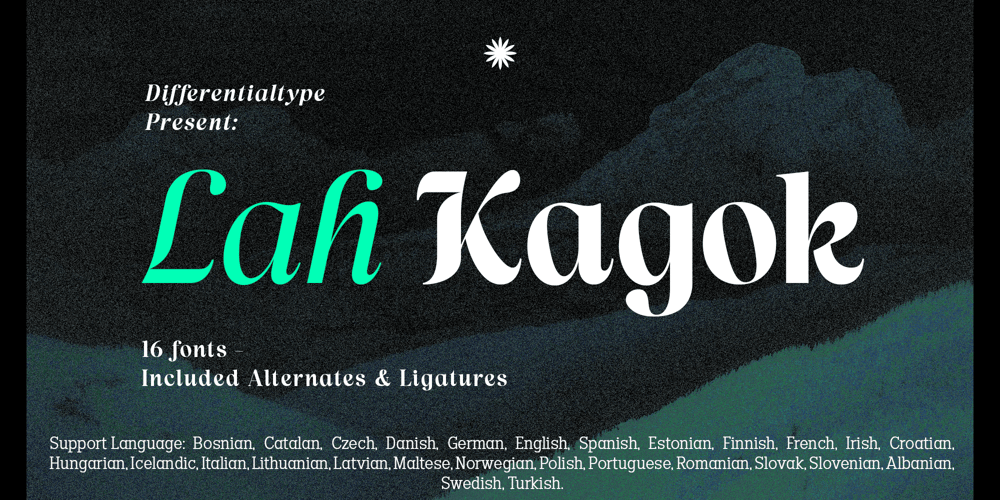
Lah Kagok Font Family was designed by Sidik Sidik and published by Differentialtype. Lah Kagok contains 16 styles and family package options. Lah Kagok is an elegant and luxurious serif font family. This font comes with 8 weights accompanied by italics. The lowercase is inspired by an italic serif, which this time is also used for the upright style.Whatever design you make, this font is perfect to complement it. This font is also equipped with alternate calligraphy on the uppercase, don’t forget to activate it to add an elegant and luxurious impression to each of your projects.